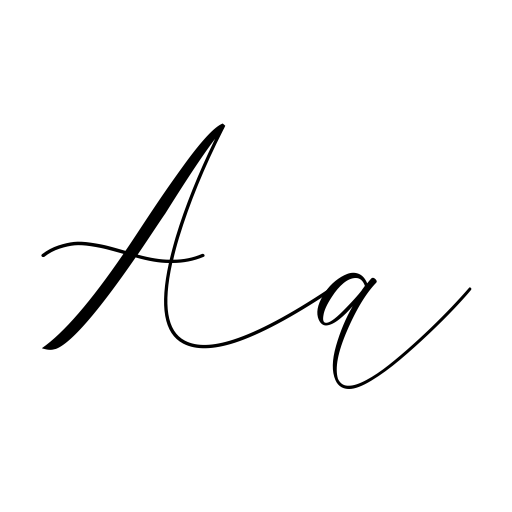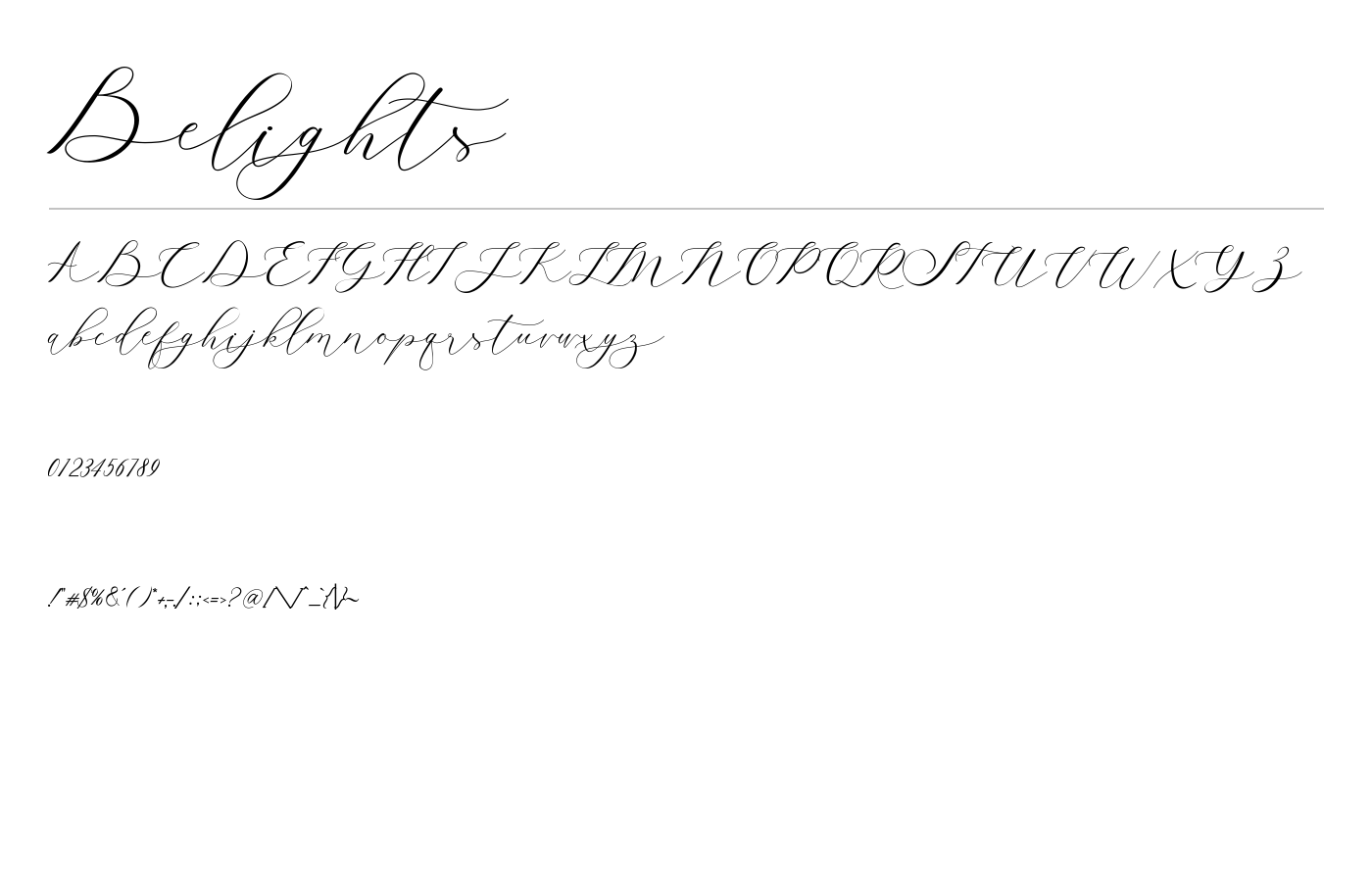
Belights is a delicate, elegant script font characterized by its fine, flowing strokes and graceful swashes, creating a sophisticated and romantic feel. Its thin, calligraphic letterforms with high contrast and ornate curves make it perfect for luxury branding, wedding invitations, and stylish editorial designs that seek a refined, handwritten touch. This font excels in conveying elegance and charm, especially in headlines or decorative uses where its intricate details can shine.
Belights Font